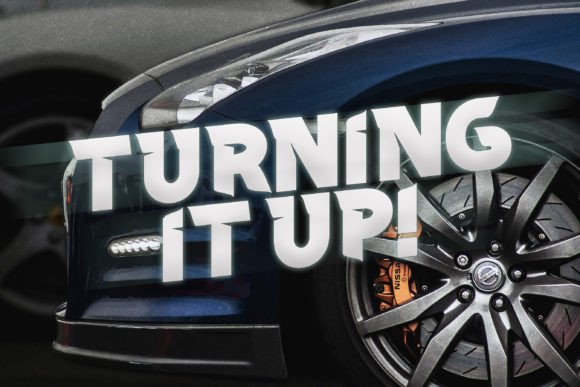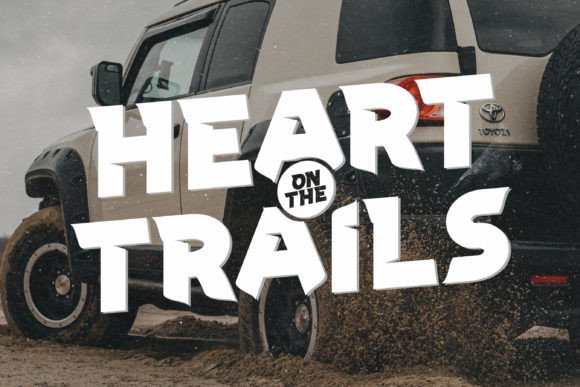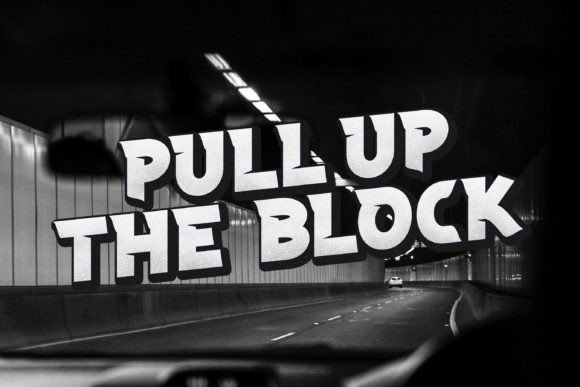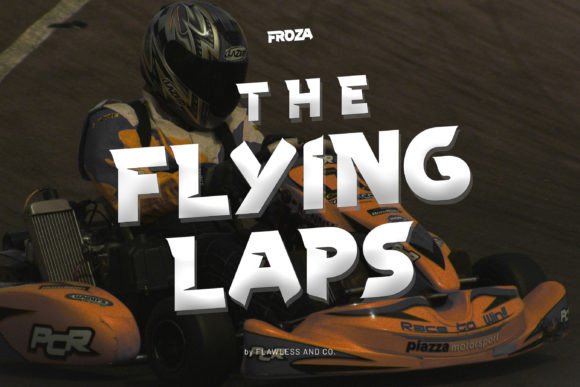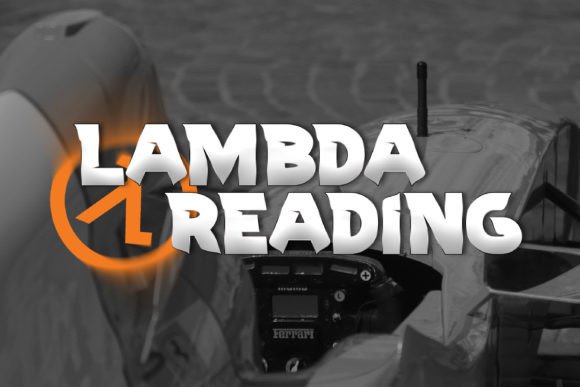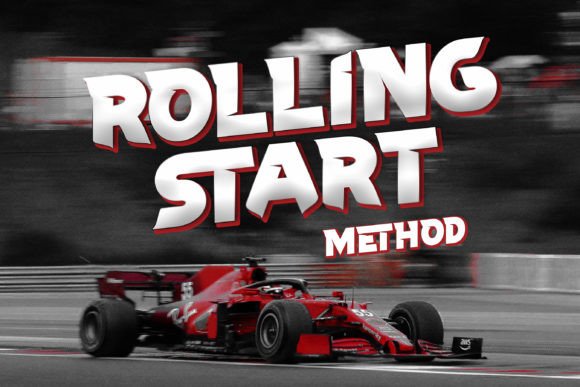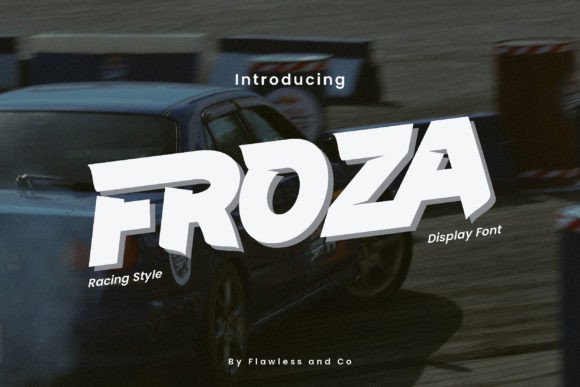
Unleash the Power of Speed: Introducing Froza Font
In the world of design, typography plays a crucial role in conveying the intended message and evoking emotions. For designers and crafters looking for a font that embodies the essence of speed, intensity, and adrenaline, look no further than Froza Font. This dynamic and powerful display font is specifically designed to capture the excitement of high-speed races, making it perfect for a variety of design projects.
The Essence of Froza Font
Froza Font showcases a strong and edgy design that reflects the aesthetics of motorsports. Its bold and sleek letterforms are crafted to make a lasting impact, exuding a sense of speed and movement. The sharp angles, sleek lines, and distinctive letterforms of Froza are carefully designed to evoke the thrill of racing, making it an ideal choice for:
- Race car branding
- Racing event posters
- Sports apparel
- Any design that requires a racing-inspired typographic element
Key Features of Froza Font
Froza Font boasts several key features that make it a standout choice for designers:
- Dynamic and Powerful: Froza’s bold and sleek design makes it perfect for headlines, titles, and any design element that requires a strong impact.
- Speed and Movement: The font’s sharp angles and sleek lines evoke a sense of speed and movement, making it ideal for racing-inspired designs.
- Edgy and Modern: Froza’s edgy design reflects the aesthetics of motorsports, giving it a modern and cutting-edge feel.
- Versatile: Froza can be used for a variety of design projects, from print materials to digital applications.
Design Applications for Froza Font
Froza Font can be used in a wide range of design applications, including:
- Race Car Branding: Use Froza to create bold and eye-catching logos, decals, and sponsorships for race cars.
- Racing Event Posters: Create stunning posters and flyers for racing events, such as Grand Prix, drag racing, or rally car competitions.
- Sports Apparel: Use Froza to design bold and stylish apparel for racing teams, motorsports enthusiasts, or sports brands.
- Digital Applications: Froza can be used for digital applications, such as video game titles, animations, or social media graphics.
Tips for Using Froza Font
To get the most out of Froza Font, here are some tips for designers:
- Pair with contrasting fonts: Pair Froza with clean and simple fonts to create a striking contrast and emphasize the boldness of the font.
- Experiment with colors: Use bold and bright colors to match the energetic and dynamic feel of Froza.
- Play with sizes: Experiment with different font sizes to create visual hierarchy and emphasize the impact of Froza.
Froza Font is a powerful and dynamic display font that embodies the essence of speed, intensity, and adrenaline in the world of racing. With its bold and sleek letterforms, Froza is designed to make a lasting impact and evoke the excitement of high-speed races. Whether you’re a designer, crafter, or racing enthusiast, Froza Font is the perfect choice for any design project that requires a racing-inspired typographic element.